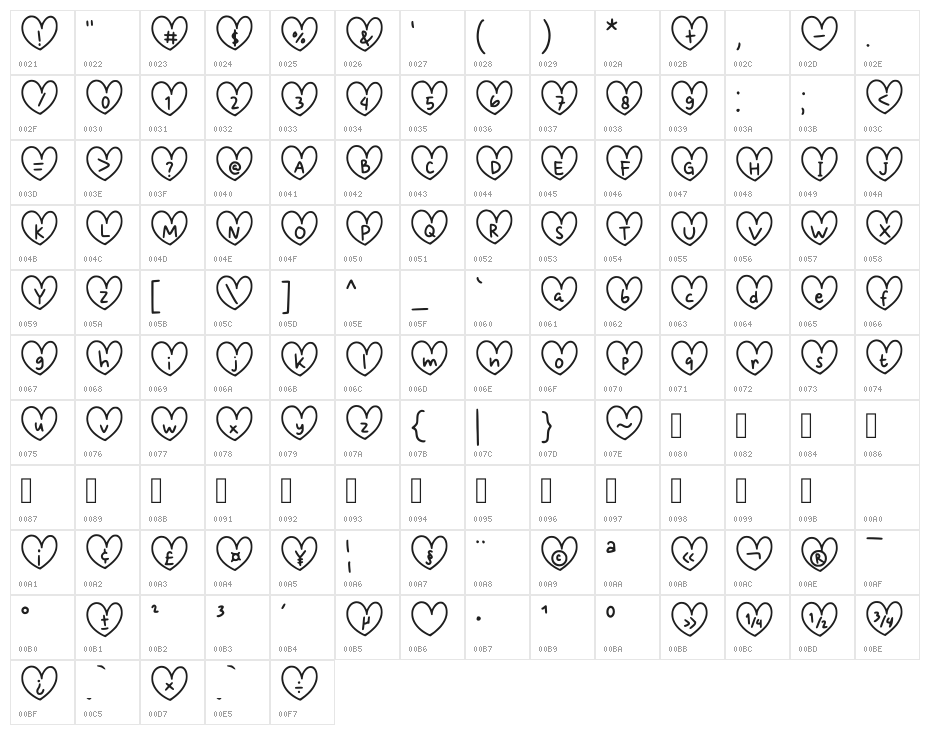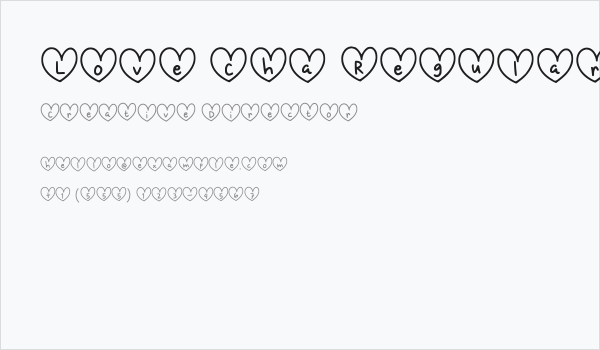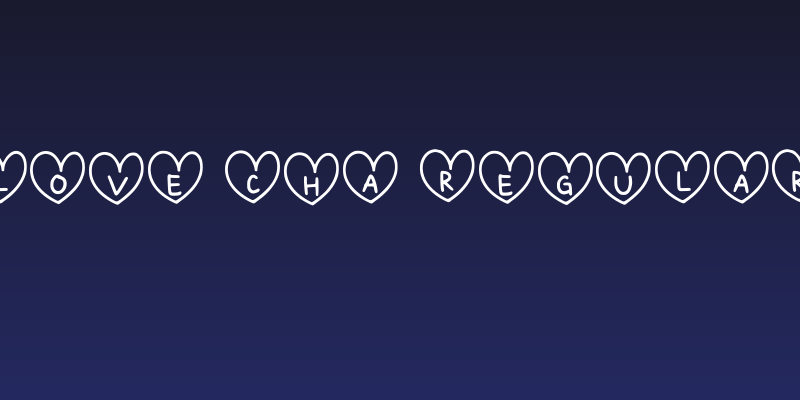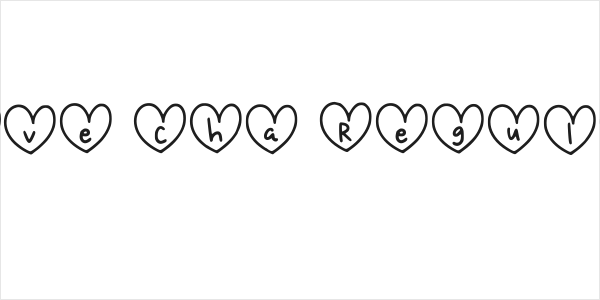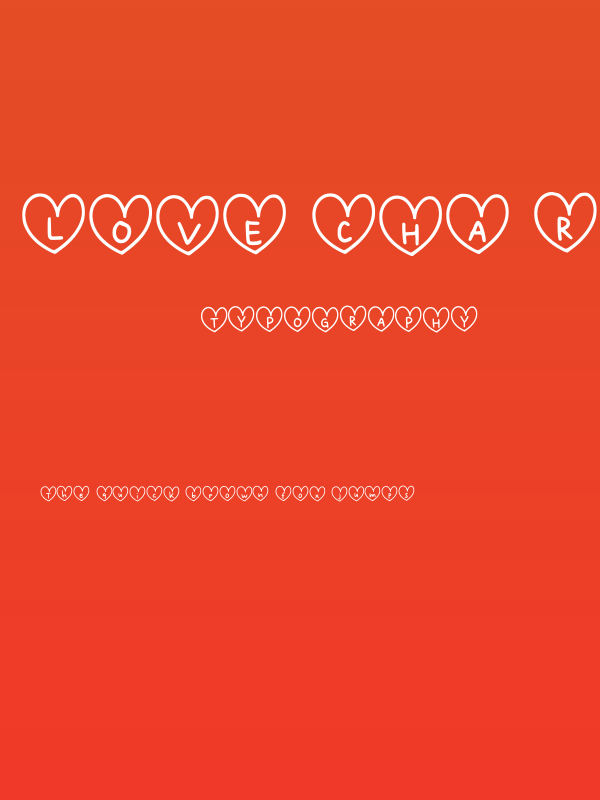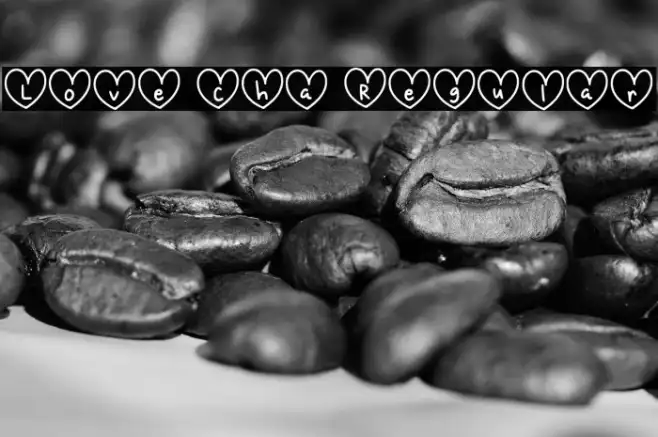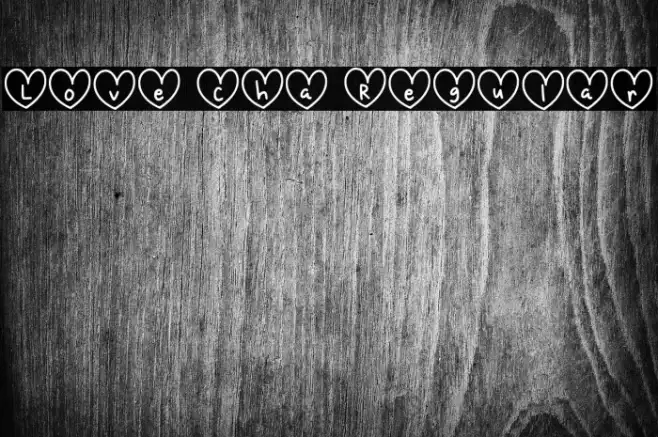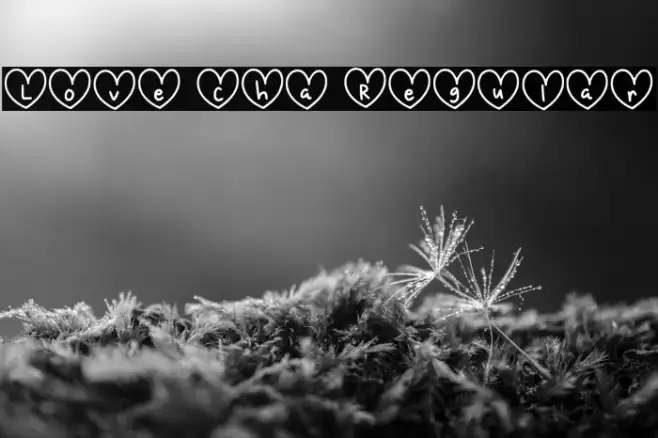
Love Cha Regular Font
Love Cha Regular Description
This playful and decorative font features each character enclosed within a heart shape, creating a whimsical and romantic aesthetic. The letters are simple and rounded, providing a friendly and approachable feel. The consistent heart motif across uppercase, lowercase, numbers, and special characters adds a cohesive and charming touch. This font is perfect for projects that aim to convey love, affection, or a lighthearted theme. The clear and bold outlines ensure readability while maintaining its unique style.